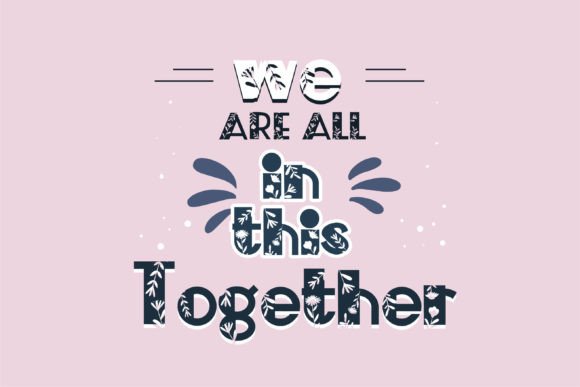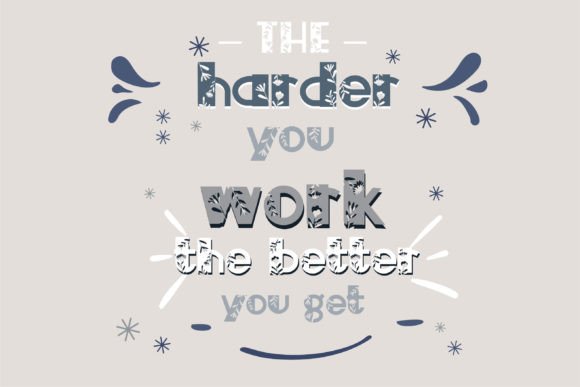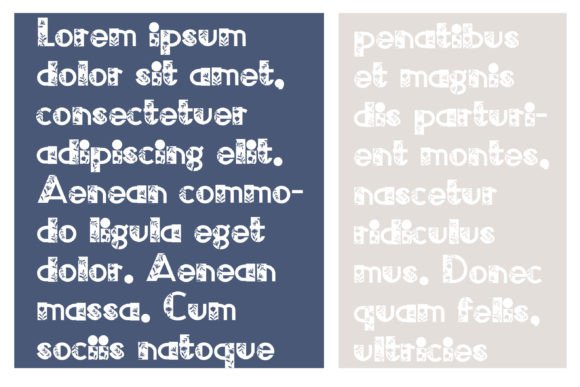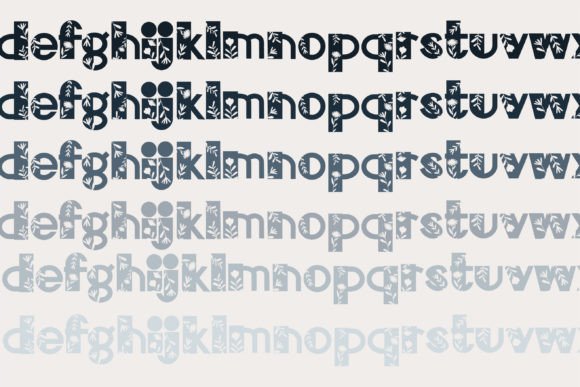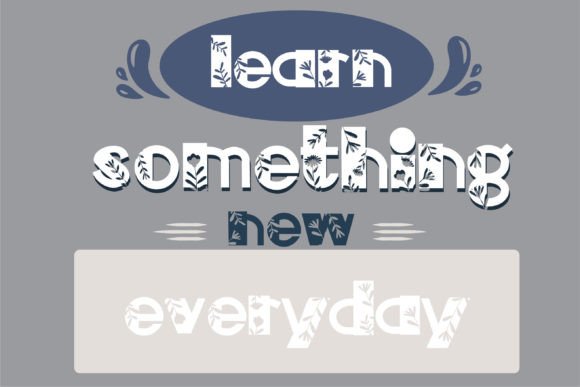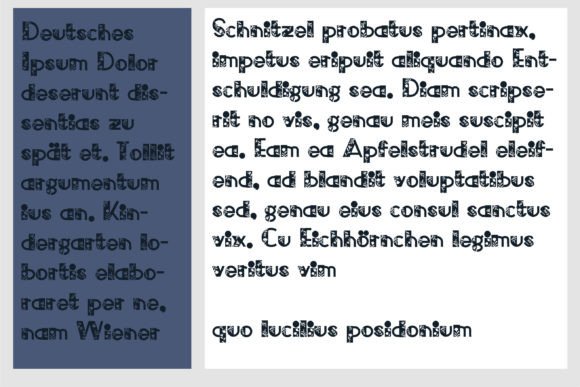
Introducing Central Spring Font: The Ultimate Decorative Font for Creative Projects
Are you tired of using the same old fonts for your creative projects? Look no further! Central Spring Font is a fun and bold sans serif decorative font that is sure to take your designs to the next level. This unique font features flower silhouettes throughout, adding a touch of elegance and whimsy to any project.
What is Central Spring Font?
Central Spring Font is a decorative font that is perfect for designers and crafters who want to add a personal touch to their work. The font features a sans serif design with flower silhouettes incorporated into the letters, making it a standout from more traditional fonts. The result is a fun and playful font that is sure to capture the attention of your audience.
Key Features of Central Spring Font
- Unique Design: Central Spring Font features a one-of-a-kind design that combines sans serif letters with flower silhouettes, making it a true showstopper.
- Bold and Fun: This font is perfect for designers and crafters who want to add a touch of whimsy and personality to their work.
- Versatile: This font can be used for a wide range of creative projects, from paper crafting and DIY projects to digital designs and branding.
How to Use Central Spring Font
Central Spring Font is perfect for a wide range of creative projects, including:
- Paper Crafting: Use Central Spring Font to add a personal touch to your paper crafting projects, such as cards, scrapbook pages, and journal entries.
- DIY Projects: Add a touch of elegance and whimsy to your DIY projects, such as signs, banners, and home decor items.
- Digital Designs: Use Central Spring Font to create eye-catching digital designs, such as social media graphics, blog headers, and website elements.
- Branding: Use Central Spring Font to create a unique and memorable brand identity for your business or personal brand.
Tips and Tricks for Using Central Spring Font
Here are a few tips and tricks for getting the most out of Central Spring Font:
- Experiment with Colors: Central Spring Font looks great in a variety of colors, so don’t be afraid to experiment and find the perfect hue for your project.
- Mix and Match: Combine Central Spring Font with other fonts and design elements to create a unique and eye-catching design.
- Play with Size: Central Spring Font looks great in a variety of sizes, from small and delicate to large and bold.
Why Choose Central Spring Font?
So why choose Central Spring Font for your creative projects? Here are just a few reasons:
- Unique Design: Central Spring Font features a one-of-a-kind design that is sure to set your projects apart from the rest.
- Versatile: Central Spring Font can be used for a wide range of creative projects, making it a great addition to any design library.
Central Spring Font is a fun and bold sans serif decorative font that is perfect for designers and crafters who want to add a personal touch to their work. With its unique design, ease of use, and versatility, this font is sure to become a favorite in your design library. So why wait? Download Central Spring Font today and start creating!